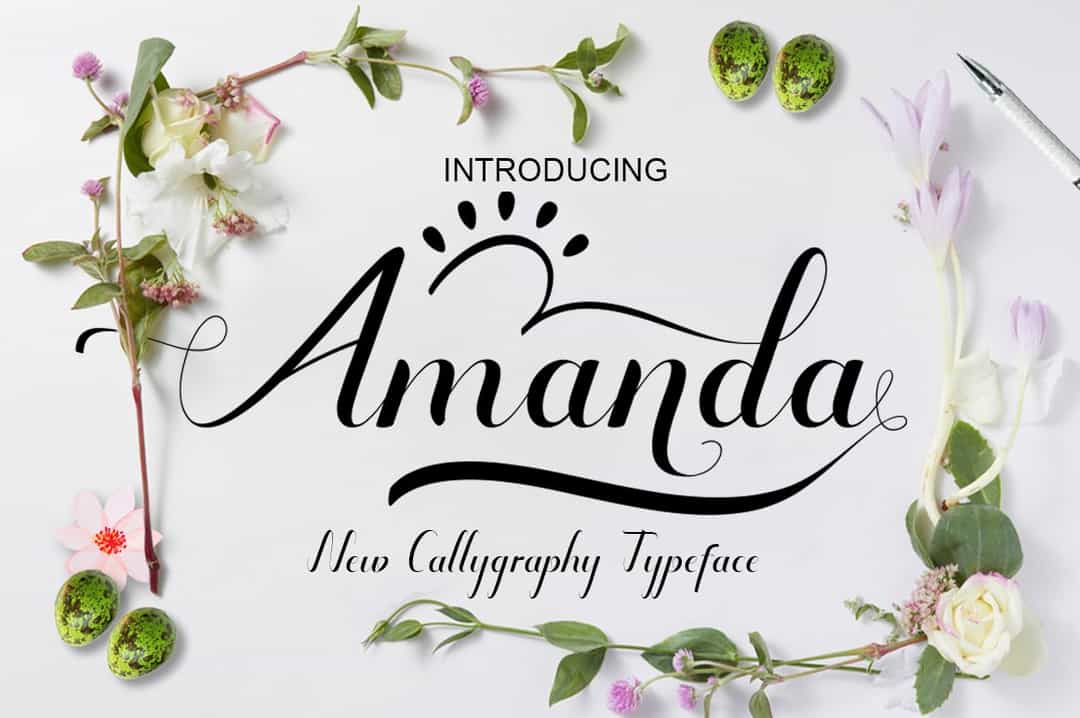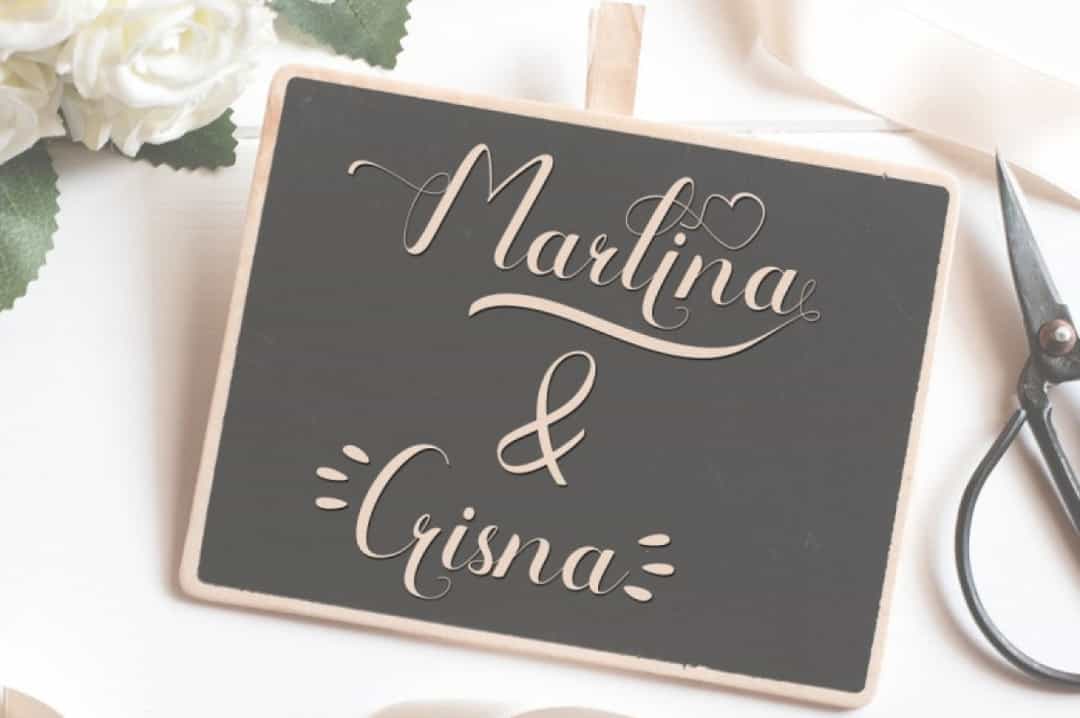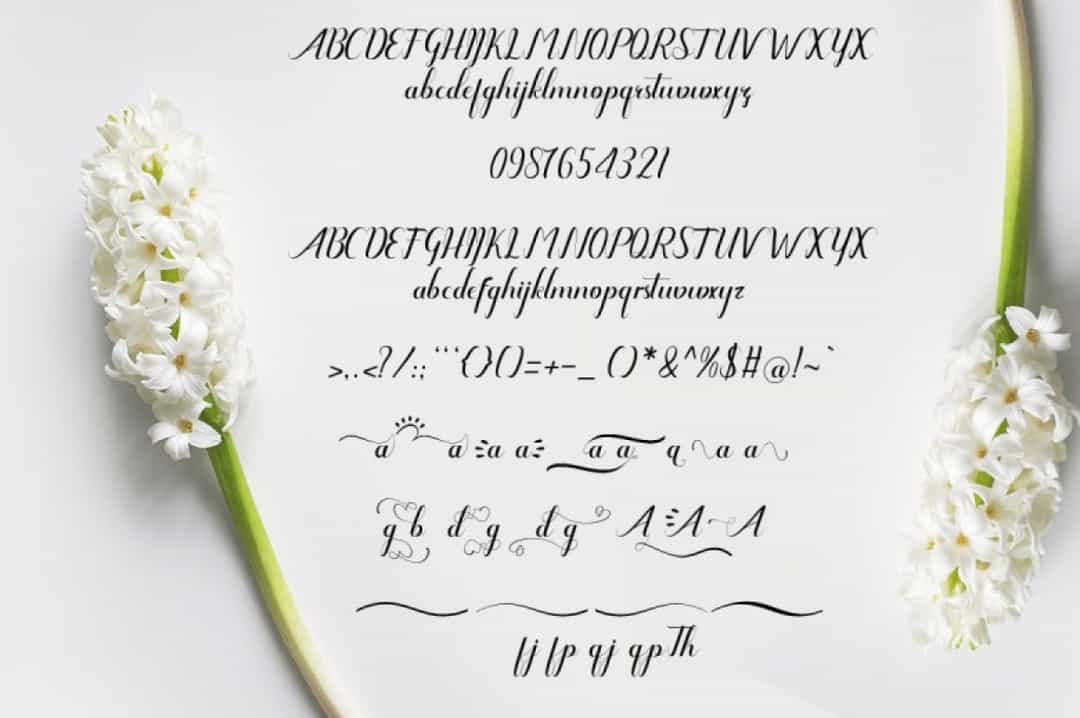
Discover Amanda Font, part of the Calligraphy collection—a versatile and unique font perfect for adding a personal touch to your projects. Download it for free and enjoy crafting designs with style, from invitations to social media posts. This font is available exclusively for personal use, giving you the freedom to create without limits. Unlock your creativity with Amanda Font today!
Here is what I want to share with you New Fonts Amanda Script. Amanda Script New: fresh & modern style with handmade calligraphy, decorative characters and dancing lineage!Such are invitations as greeting cards, branding material, business cards, quotes, posters, and many more!!